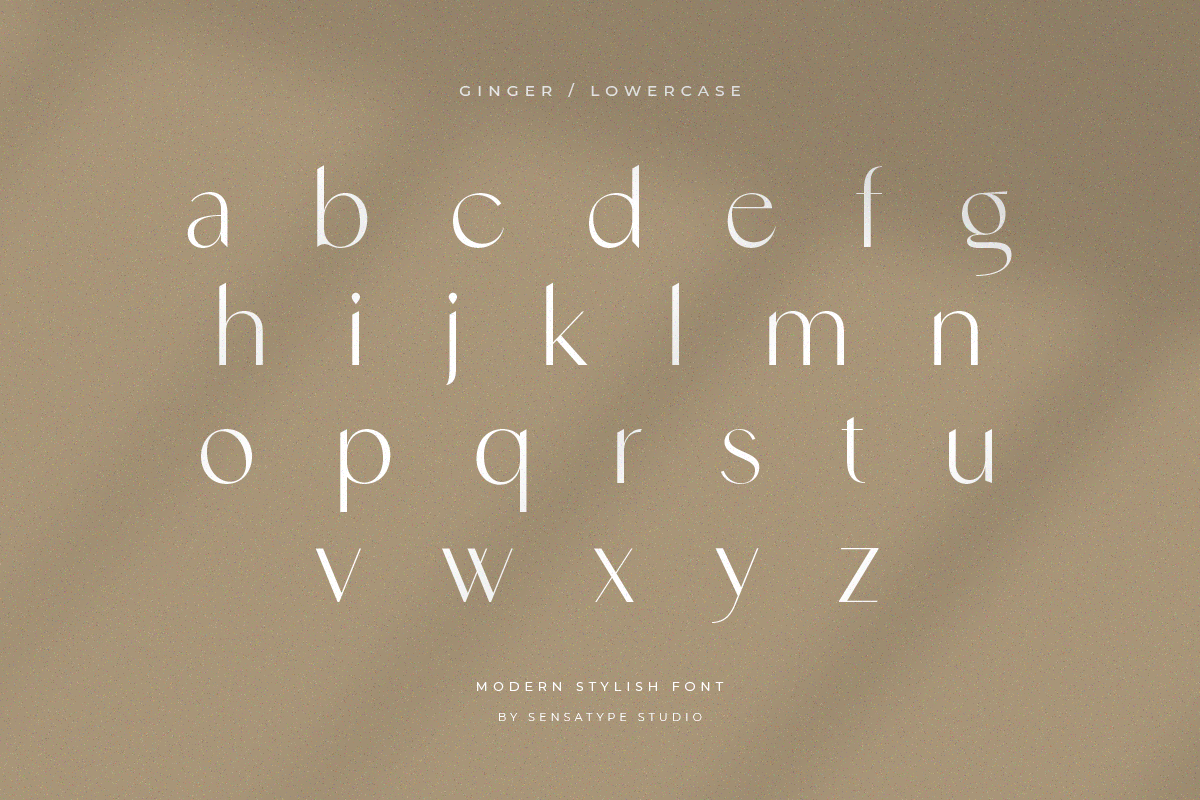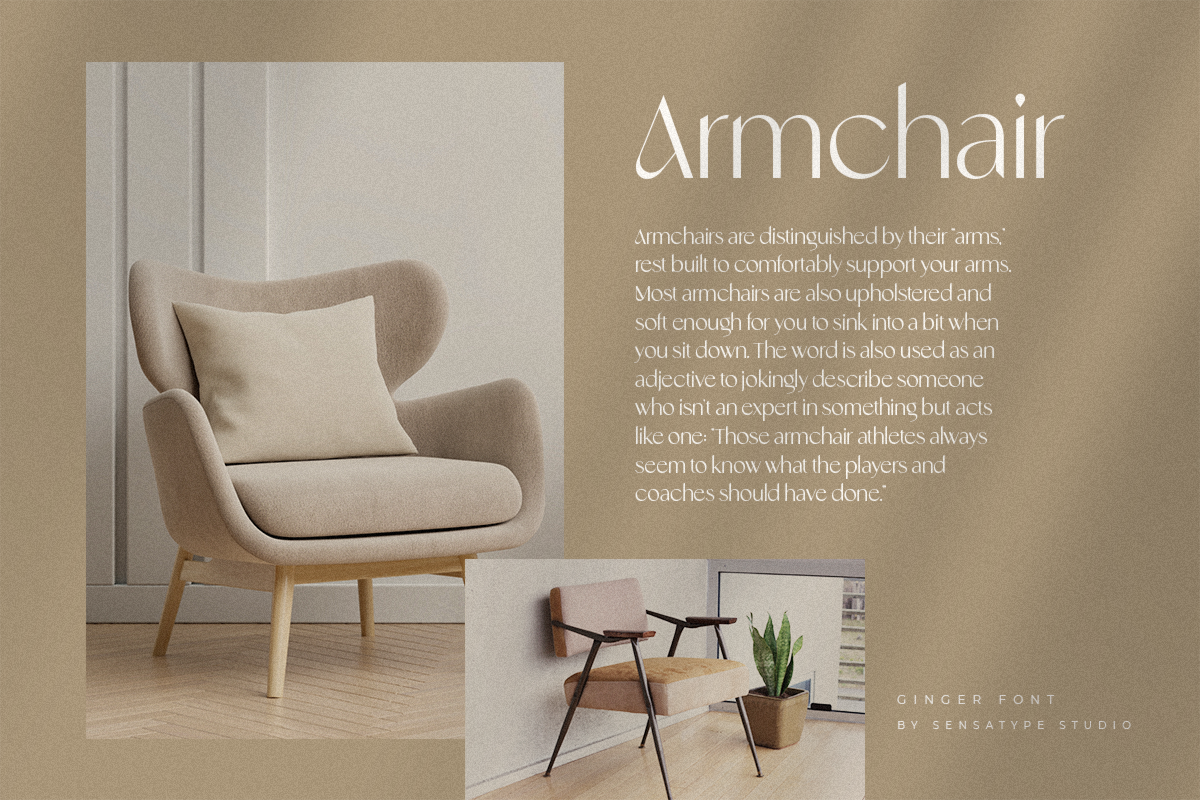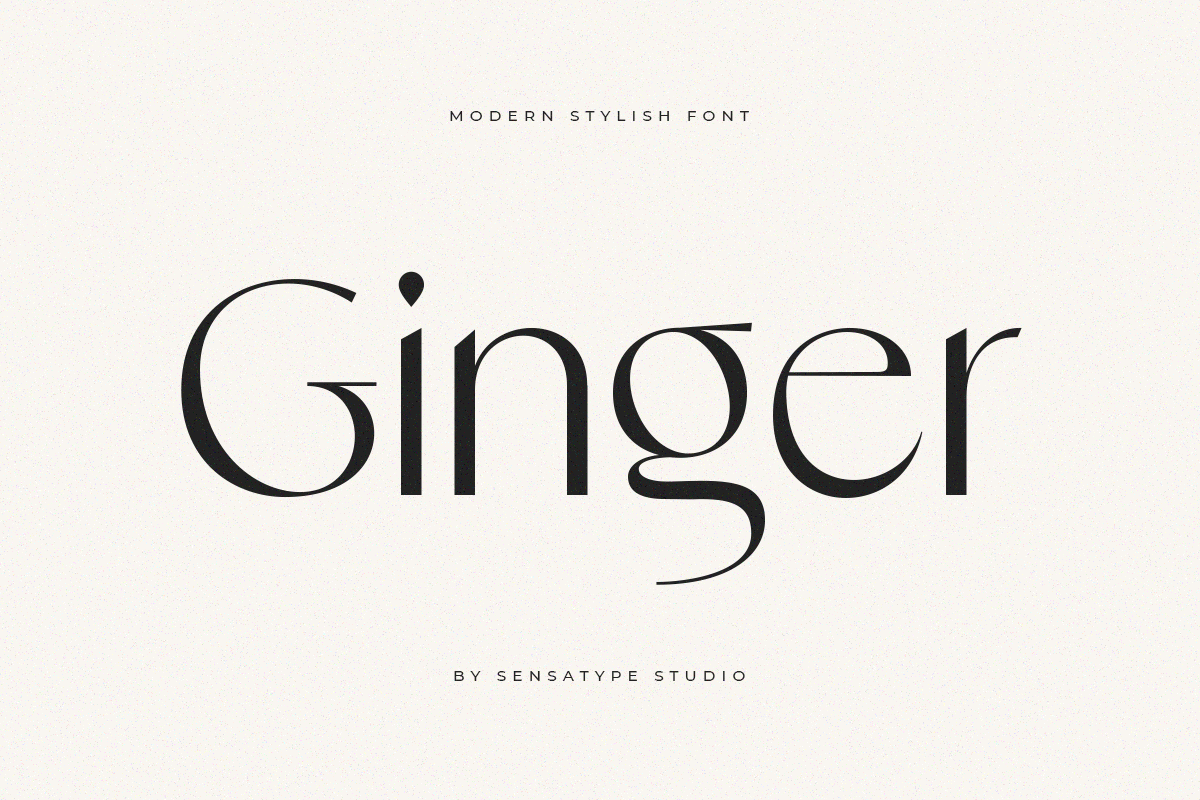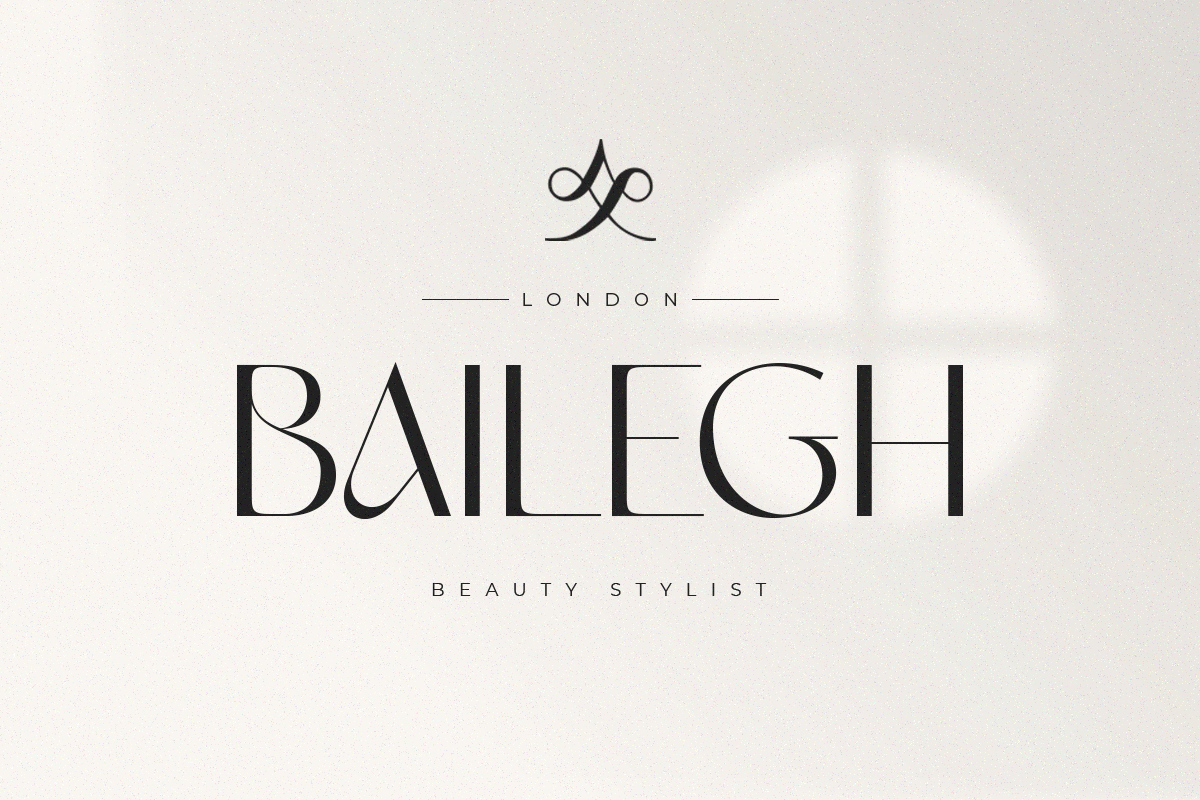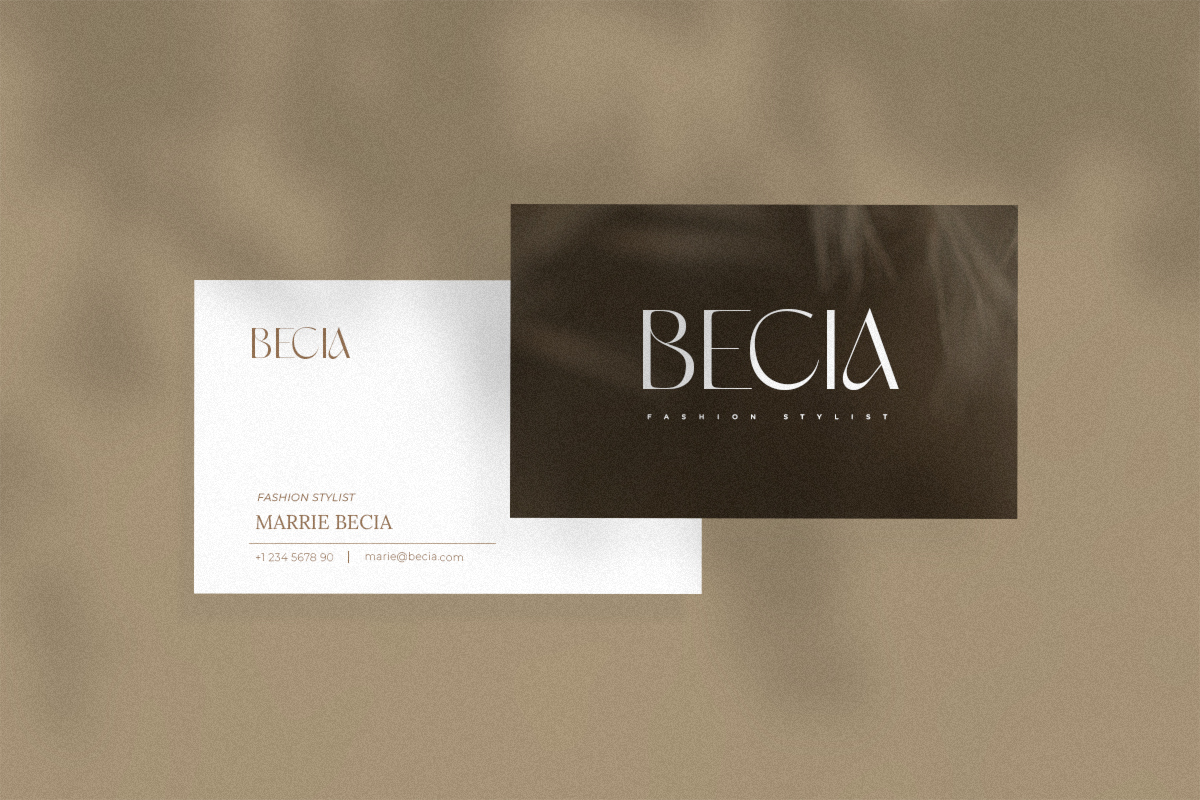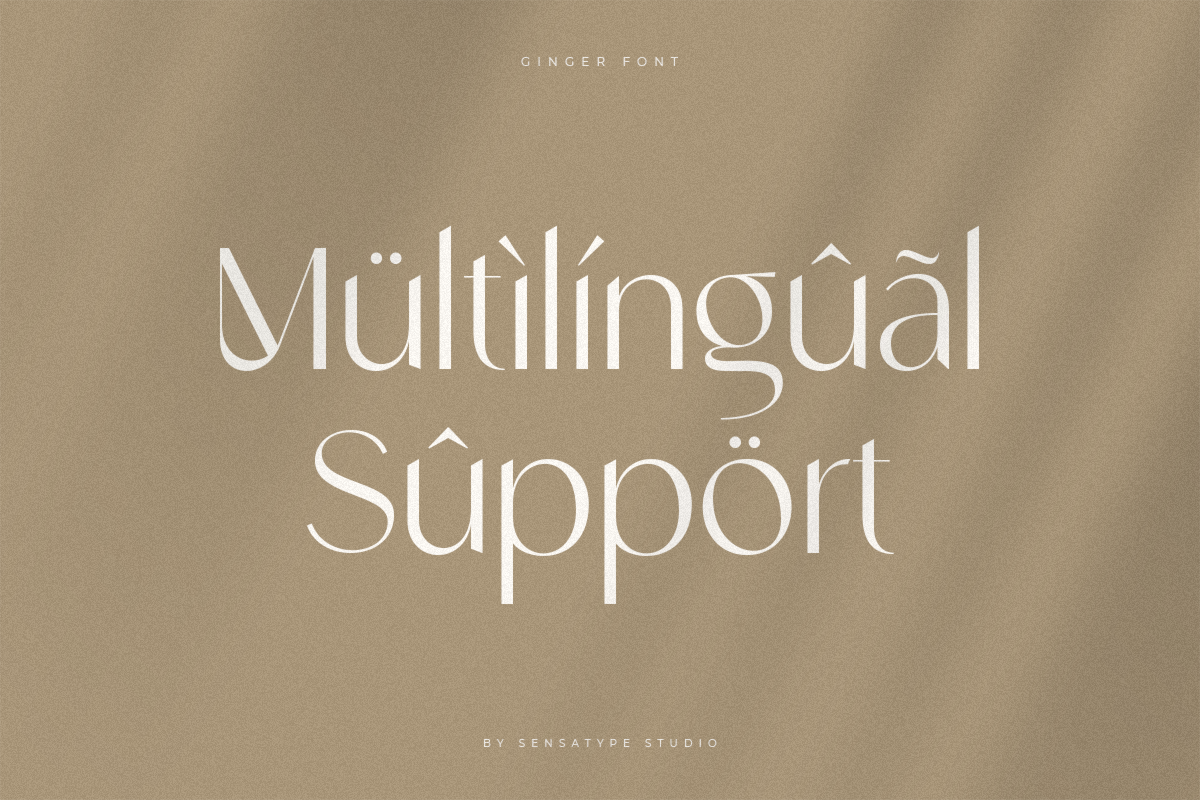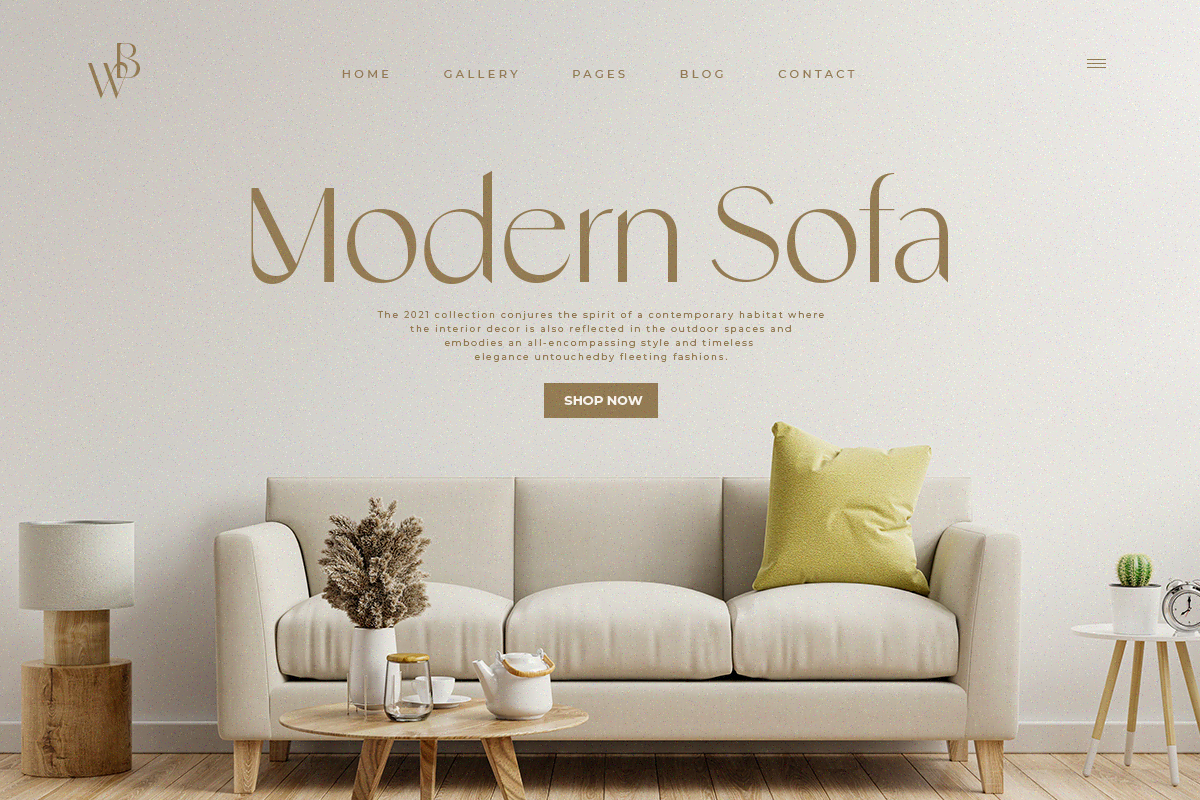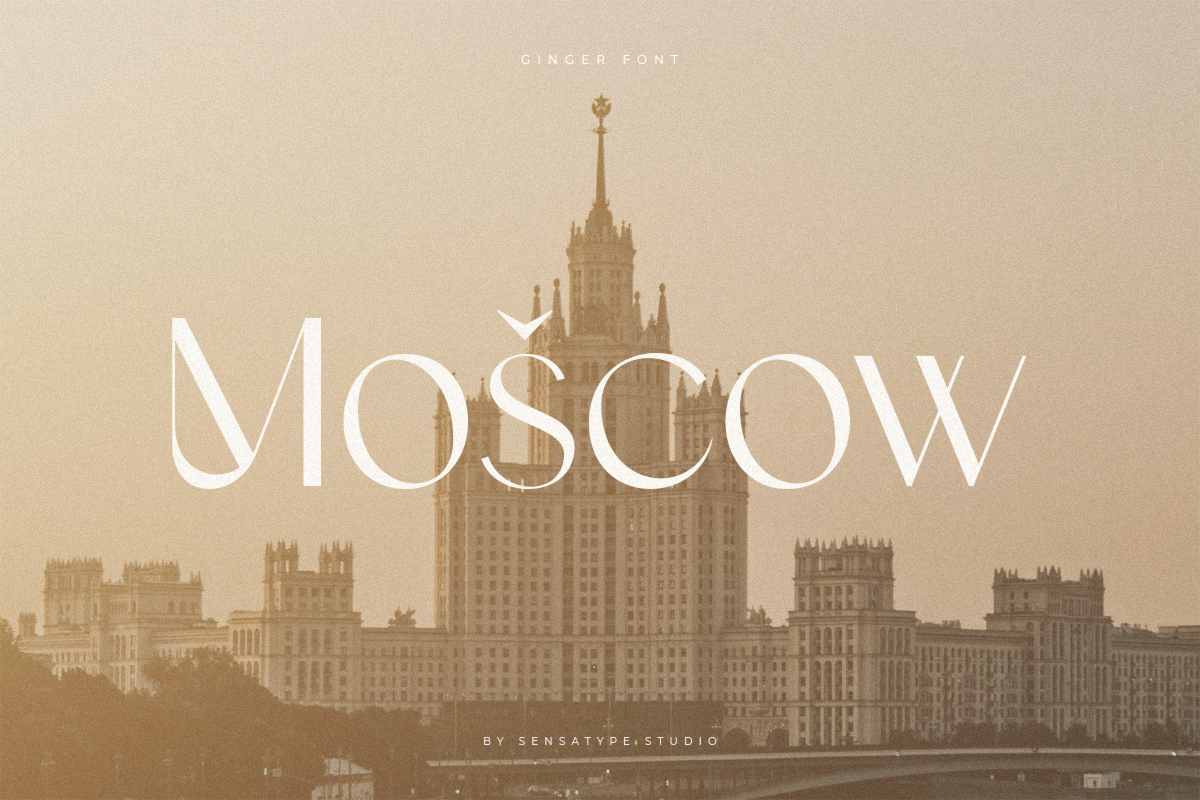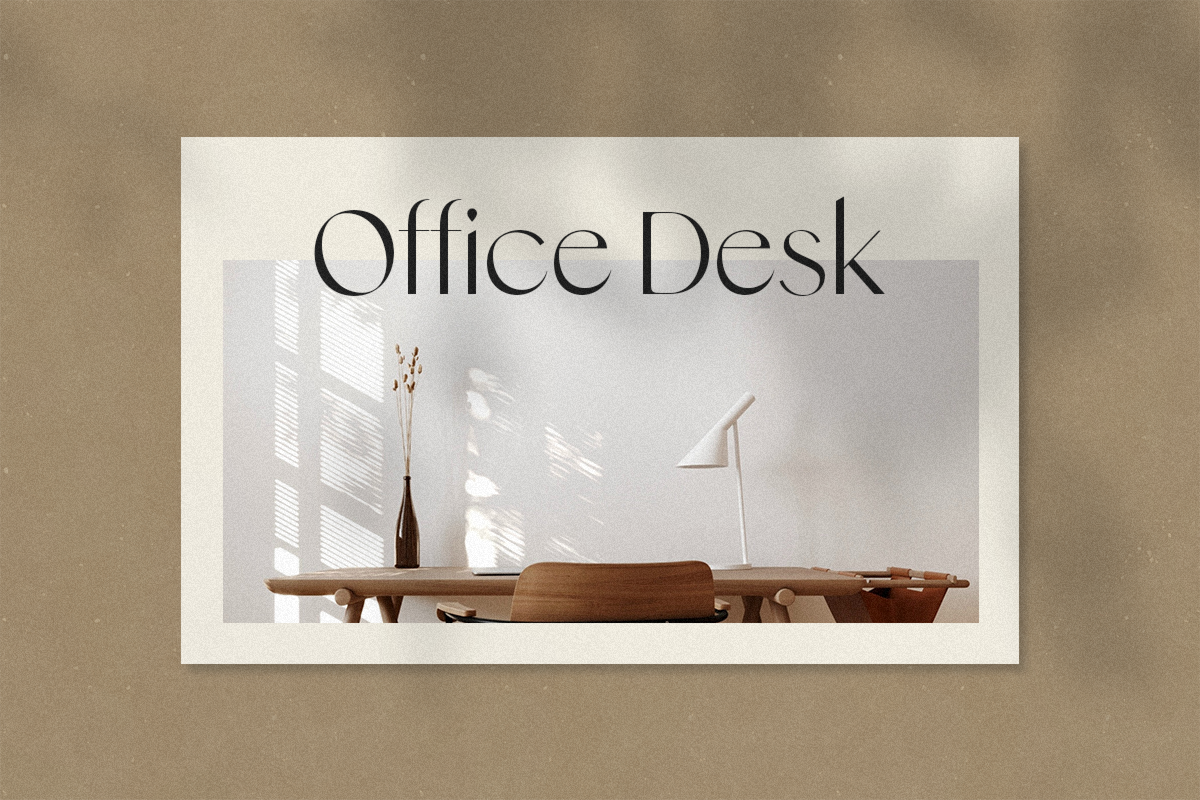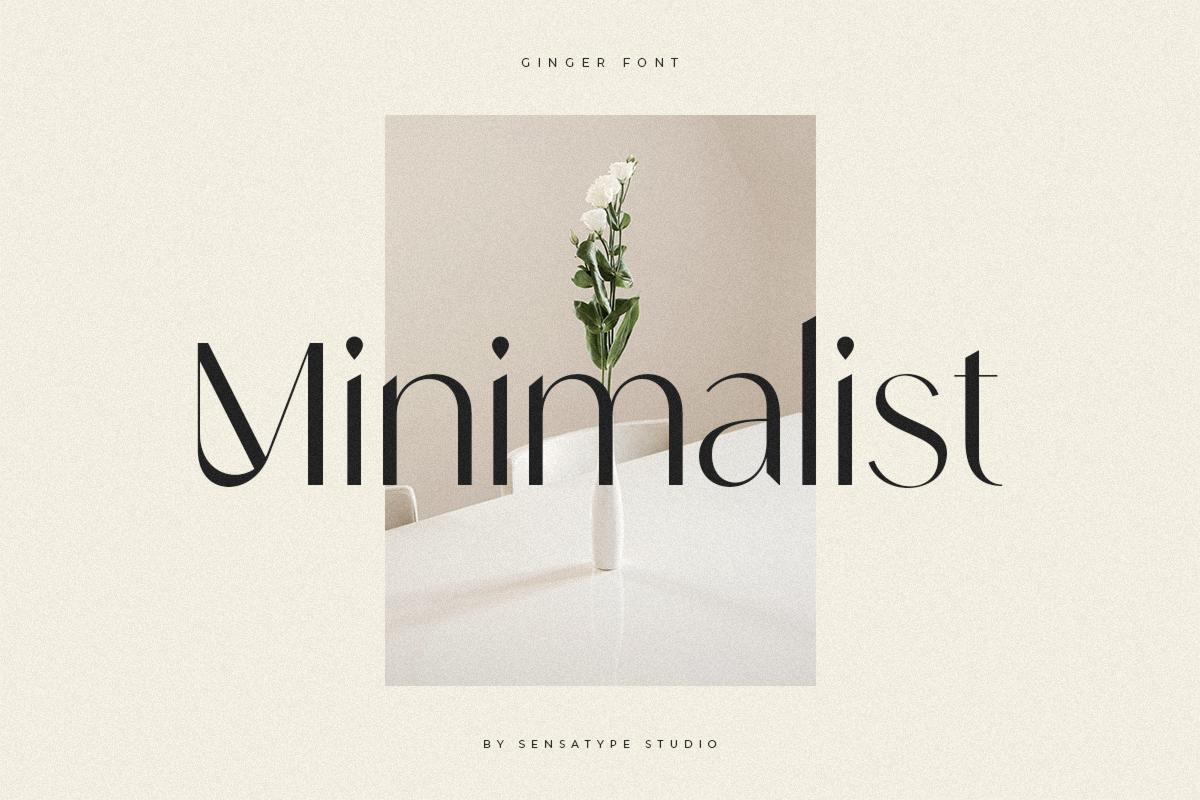
Ginger is a Modern Stylish Font.
In a new generations, we analyze that any designer or brand owner need to make their brand standout. As our focus that analyze any typeface that helps to leverage any logo design to look more modern and unique. We prepared this font with any unique characters to help you create unlimited variations for your creative needs.
Ginger sans serif font ready with:
Any options to get creative variations with unique letters
Preview as a inspirations that you can do with Ginger font
Ready with Lowercase and Uppercase characters